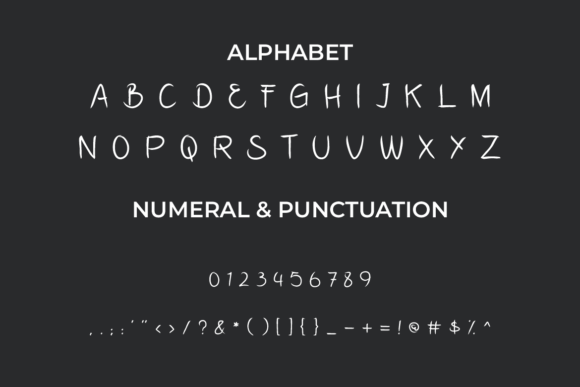
Introduction to Ngeri Font
Have you ever been working on a creative project, and the right font just slips your mind? You’ve got a vision, but it’s missing that perfect touch. For designers, finding the right font can be the difference between a good design and an amazing one. That’s where Ngeri Font comes in – a fun and quirky handwritten font that’s sure to bring your designs to life.
Whether you’re crafting greeting cards, working on a digital design, or creating presentations, Ngeri Font is a valuable resource that can elevate your work to the next level. And the best part? It’s available for a free download, making it an accessible design resource for designers of all levels.
With its high-quality, transparent background, Ngeri Font is perfect for any creative project. So, what are you waiting for? Dive into the world of Ngeri Font and discover a new favorite font that’s sure to become your go-to design companion.
Key Features of Ngeri Font
- High-quality design resource with a unique aesthetic, ideal for creative projects
- Unique font style with a touch of elegance, perfect for adding a sophisticated touch to any design project
Honest Review: Ngeri Font
I recently stumbled upon the Ngeri Font while searching for a design resource to enhance a creative project. I was immediately drawn to its unique aesthetic and high-quality design.
- What works well: ✨ The Ngeri Font offers a wide range of styles and weights, making it versatile for various design applications. The font is also available for free download, which is a major plus.
- What works well: ✨ The transparent background of the font makes it easy to customize and integrate into different design elements.
However, I did encounter a few limitations while working with the Ngeri Font.
- ⚠️ The font may not be suitable for small text sizes, as the characters can appear blurry or pixelated.
- ⚠️ Some users may find the font’s unique style to be too quirky or unconventional for certain design projects.
Overall, I was impressed with the Ngeri Font’s design and versatility. While it may have some limitations, it is a valuable resource for designers looking for a high-quality, creative font.
Ngeri Font
The Ngeri Font is a high-quality design resource ideal for creative projects. It offers a unique and stylish look that can elevate any design. With a transparent background, it’s perfect for backgrounds, overlays, or text effects.
Tips for Getting the Most Out of Ngeri Font
Experiment with different font sizes, colors, and effects to create unique designs. Use the Ngeri Font in combination with other design elements, such as shapes, icons, and images, to create visually appealing designs.
The Ngeri Font is ideal for creative projects, such as:
- Marketing materials, such as brochures and flyers
- Graphic design and visual arts